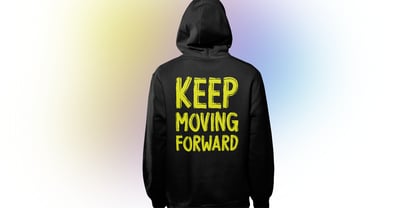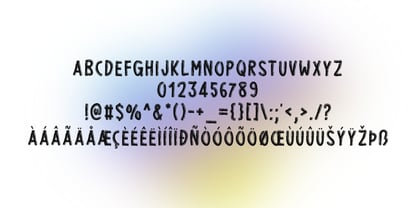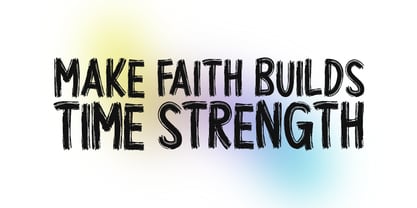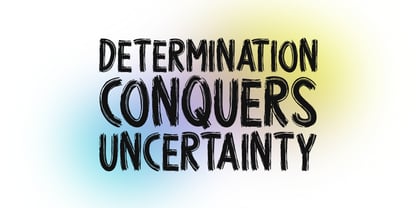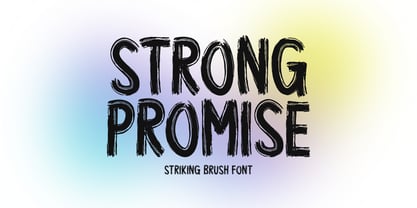
Strong Promise
by Seemly Fonts
The Strong Promise Font Family was designed by Md Shohail Bhuian and published by Seemly Fonts. Strong Promise contains 1 styles.
Strong Promise is a powerful brush-style display font crafted with bold strokes and expressive texture. It’s perfect for projects that demand attention—whether it’s logos, t-shirts, posters, music covers, or digital graphics. Designed for both print and web, Strong Promise adds a dynamic, handcrafted energy to your work, making every design feel confident, creative, and full of character.